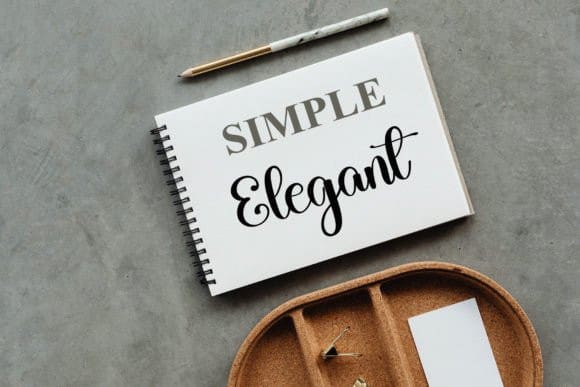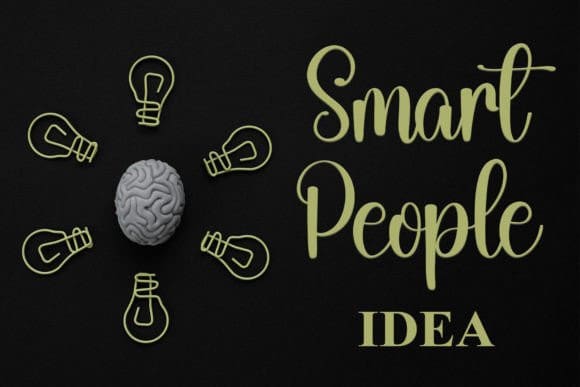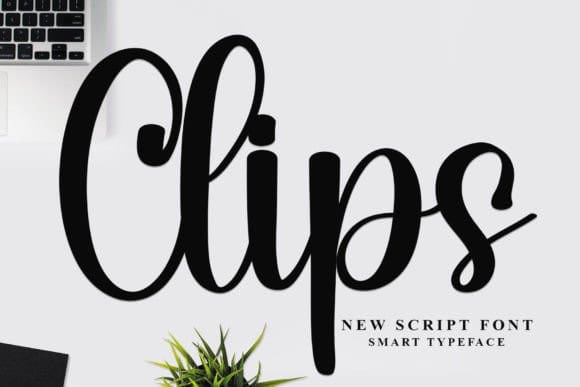
Clips Script Font
Clips Script Font is an enchanting handwritten font. This versatile script font has a wide spectrum of applications ranging from greeting cards to headlines and is guaranteed to add a romantic feel to your next project.